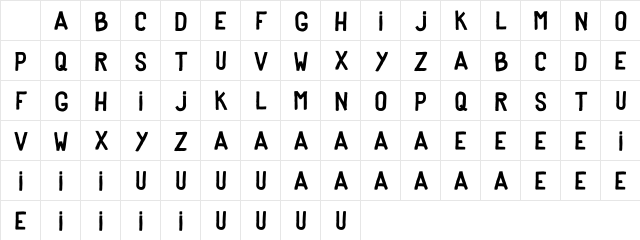
Dker is a composed and adaptable typeface that performs quietly and consistently across a wide range of design contexts.
Pro Tip: Use Dker in both headline and body roles to test its range before committing to a single application.